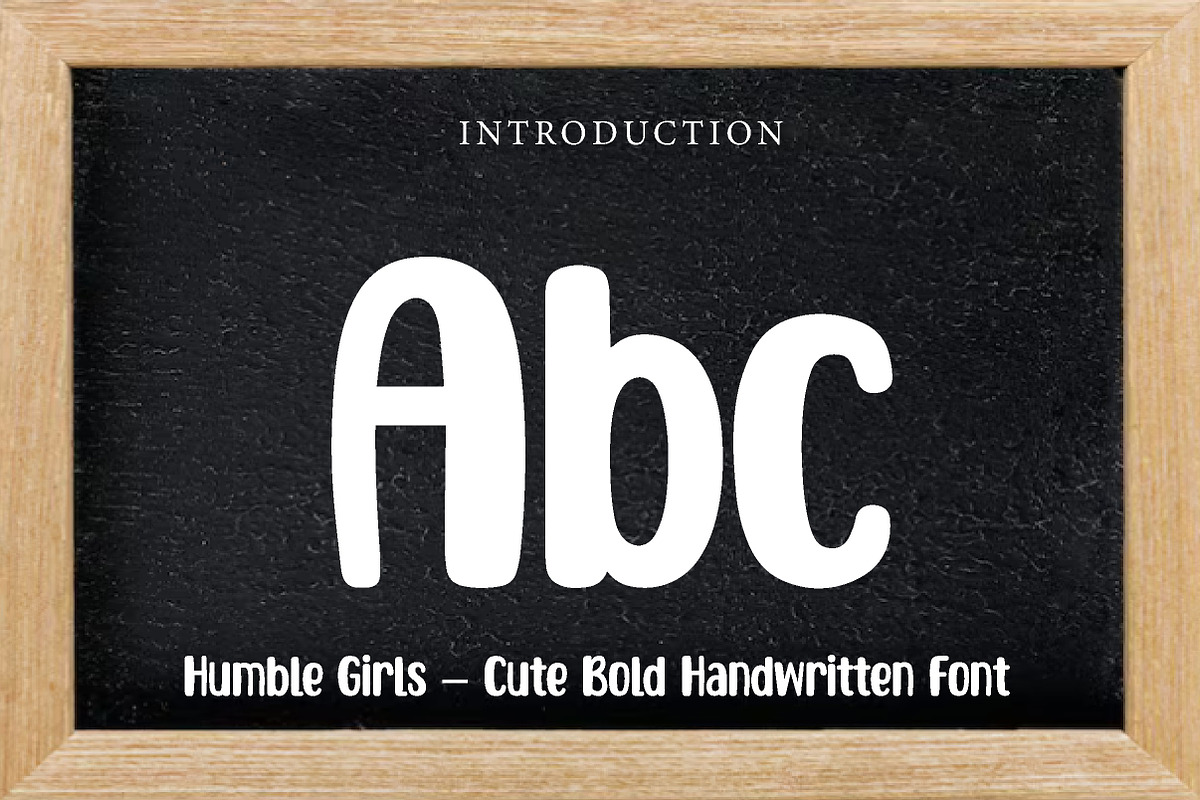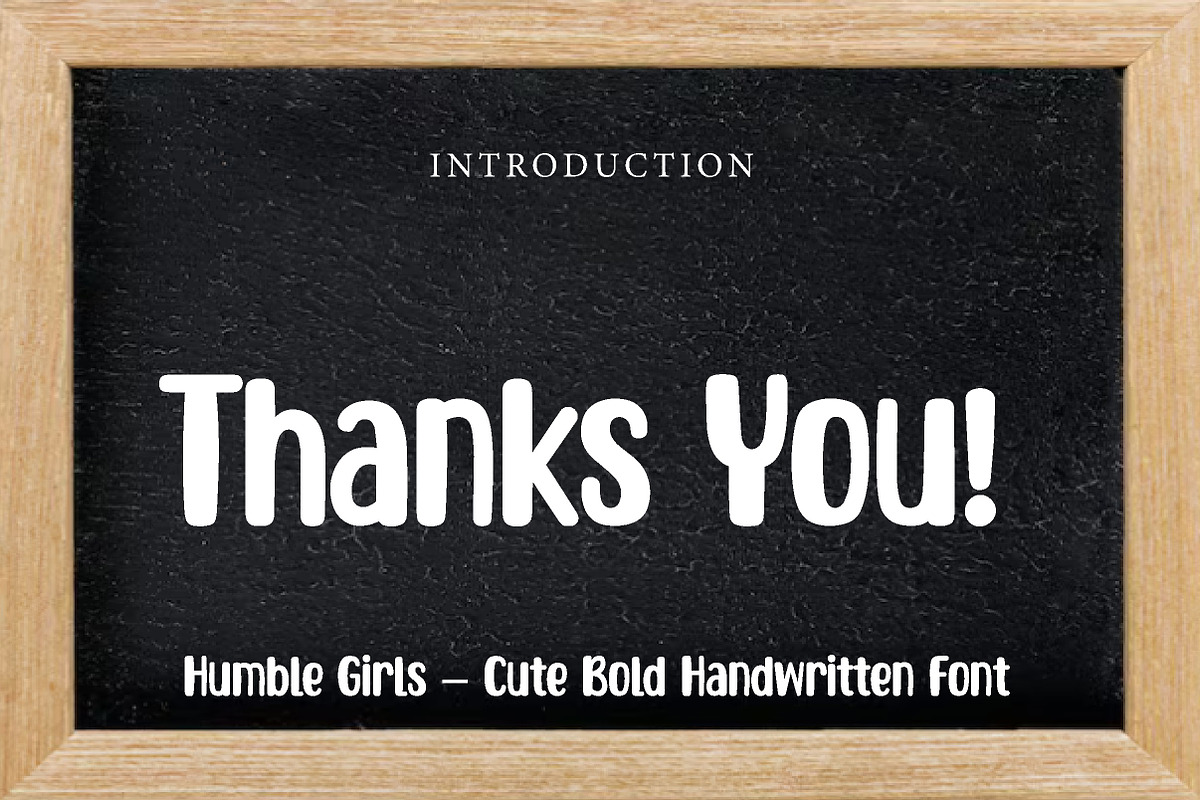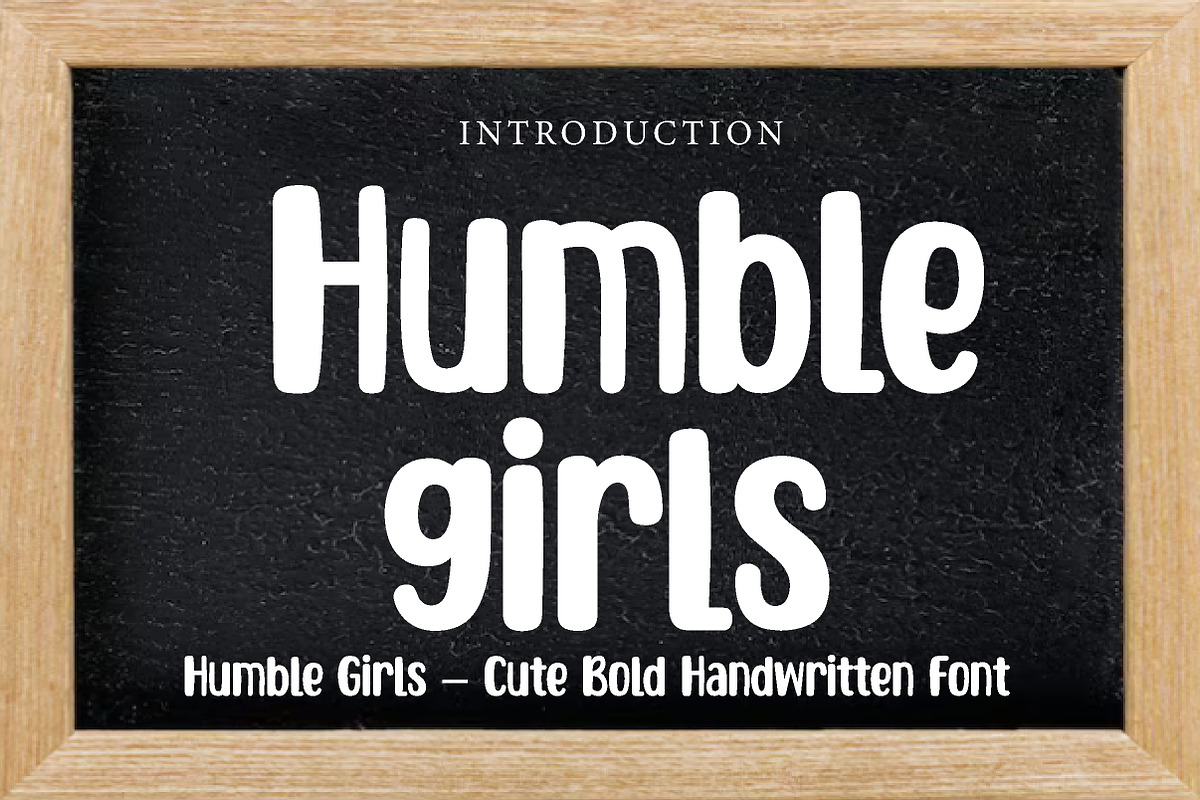
Humble Girls
Humble Girls – Cute Bold Handwritten Font
Humble Girls is a cute, bold, and friendly handwritten font, perfect for branding, packaging, kids designs, invitations, social media, and cheerful creative projects.
Humble Girls is a sweet and playful handwritten font designed to bring warmth, charm, and personality into your designs. With its thick strokes, rounded letterforms, and soft handcrafted style, this font creates a friendly and eye-catching look that feels both modern and lovable.
Its bold handwritten character makes Humble Girls perfect for projects that need a fun and approachable touch. Whether you are designing branding materials, product packaging, kids-themed graphics, invitations, posters, social media content, stickers, or cute logo concepts, this font helps your typography stand out in a cheerful and memorable way.
The rounded shapes keep your text easy to read while adding a soft and personal feel that makes every design look more inviting. Suitable for both print and digital use, Humble Girls is a wonderful choice for designers who want a font that feels friendly, bold, and full of charm.
Perfect For Branding and logos Product packaging Kids and family designs Invitations and greeting cards Social media graphics Posters and flyers Stickers and labels Website headers Cute quotes and headlines Creative display projects Font Features Uppercase letters Lowercase letters Numbers & punctuation Cute bold handwritten style Rounded and friendly shapes Soft and playful look Perfect for display use